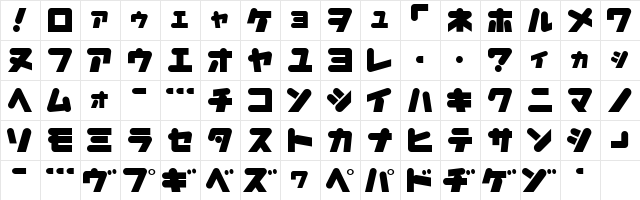
I2HappyChicken Regular Font Preview
I2HappyChicken Regular
I2HappyChicken Regular Font Details
Design Context for I2HappyChicken Typeface
I2HappyChicken offers clean, dependable letterforms without strong stylistic allegiance, making it a practical choice for designers who need flexibility.